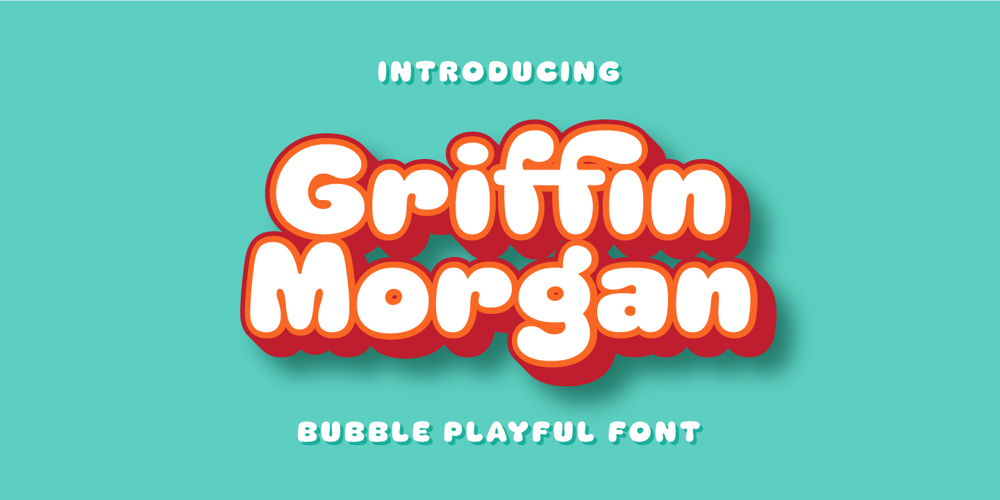
Griffin Morgan Font Family was designed by Akhmad Reza Fauzi and published by Grezline Studio. Griffin Morgan contains 1 styles and family package options. Griffin Morgan is a cute, bubbly, playful font that is perfect for kids and children-theme design. Griffin Morgan font is ideal for logos, posters, packaging, banner, and other creative projects that demand cheerful vibe and fun elements.Feature :- Ligature & Alternate glyphs- Multilingual Language- Works on PC & Mac- Simple installations- Accessible in the Adobe Illustrator, Adobe Photoshop, Adobe InDesign, even works on Microsoft Word.Thank you!Grezline Studio – Akhmad Reza Fauzi